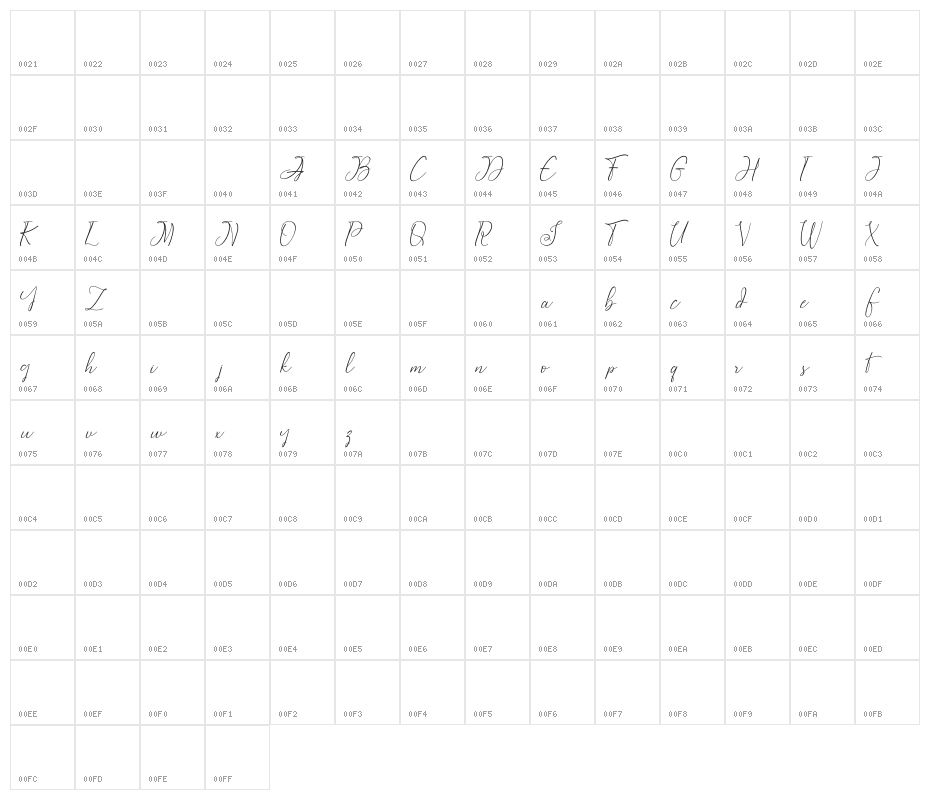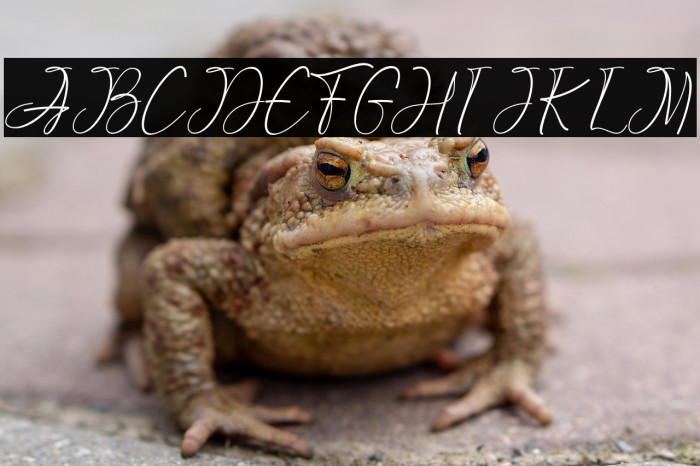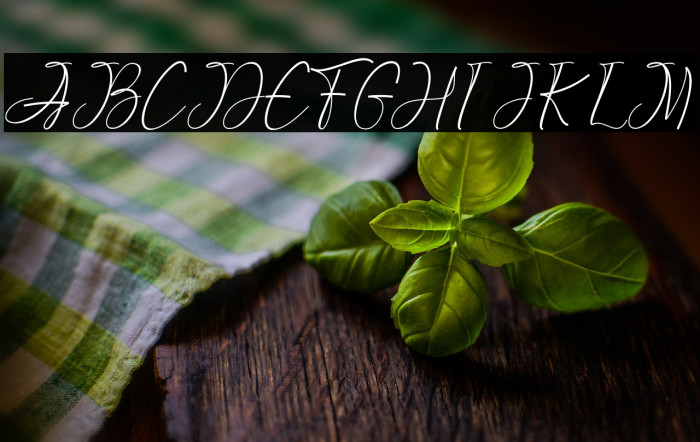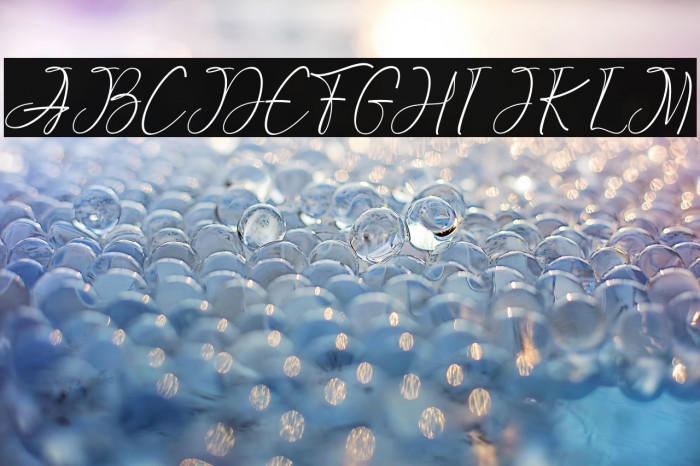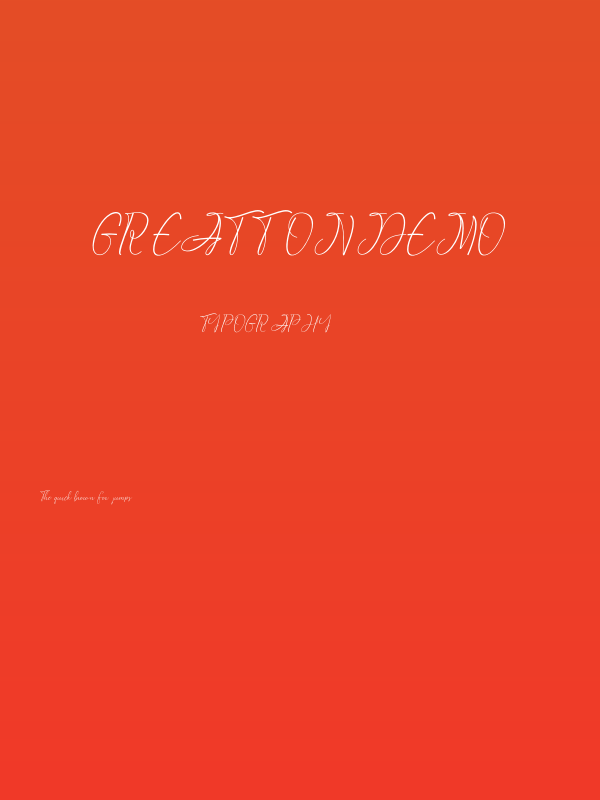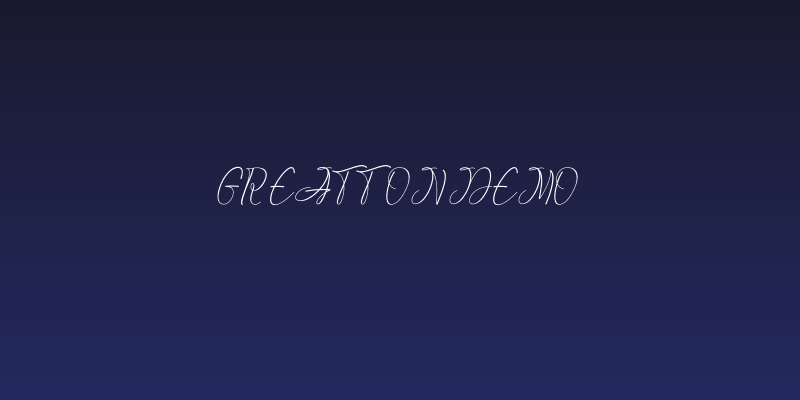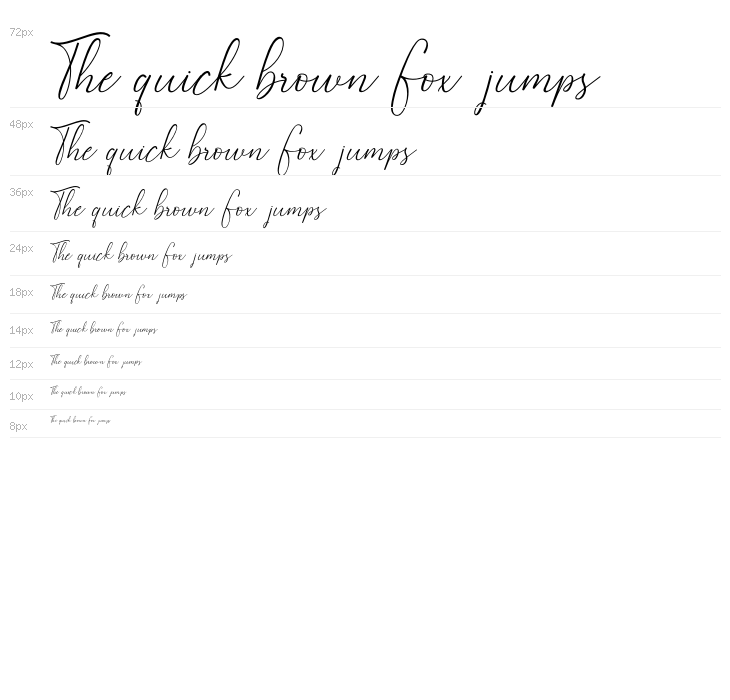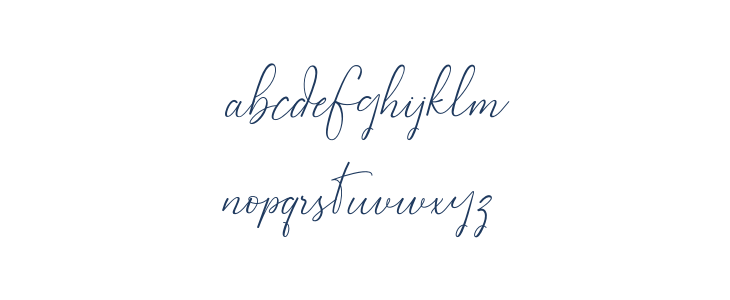
GreattonDemo Font
GreattonDemo Description
This elegant script font features a flowing, cursive style with delicate, thin strokes that convey a sense of sophistication and grace. The uppercase letters are characterized by their tall, sweeping ascenders and descenders, creating a sense of movement and fluidity. The lowercase letters maintain a consistent style, with smooth connections between characters, enhancing the font's readability. The overall design is airy and light, making it suitable for projects that require a touch of elegance and refinement. The font's intricate details and stylish curves make it ideal for formal invitations, branding, and decorative purposes.
| Use Case | Invitations, Branding, Decorative |
| Proposed Projects | Ideal for wedding invitations, elegant branding, greeting cards, and decorative prints. |